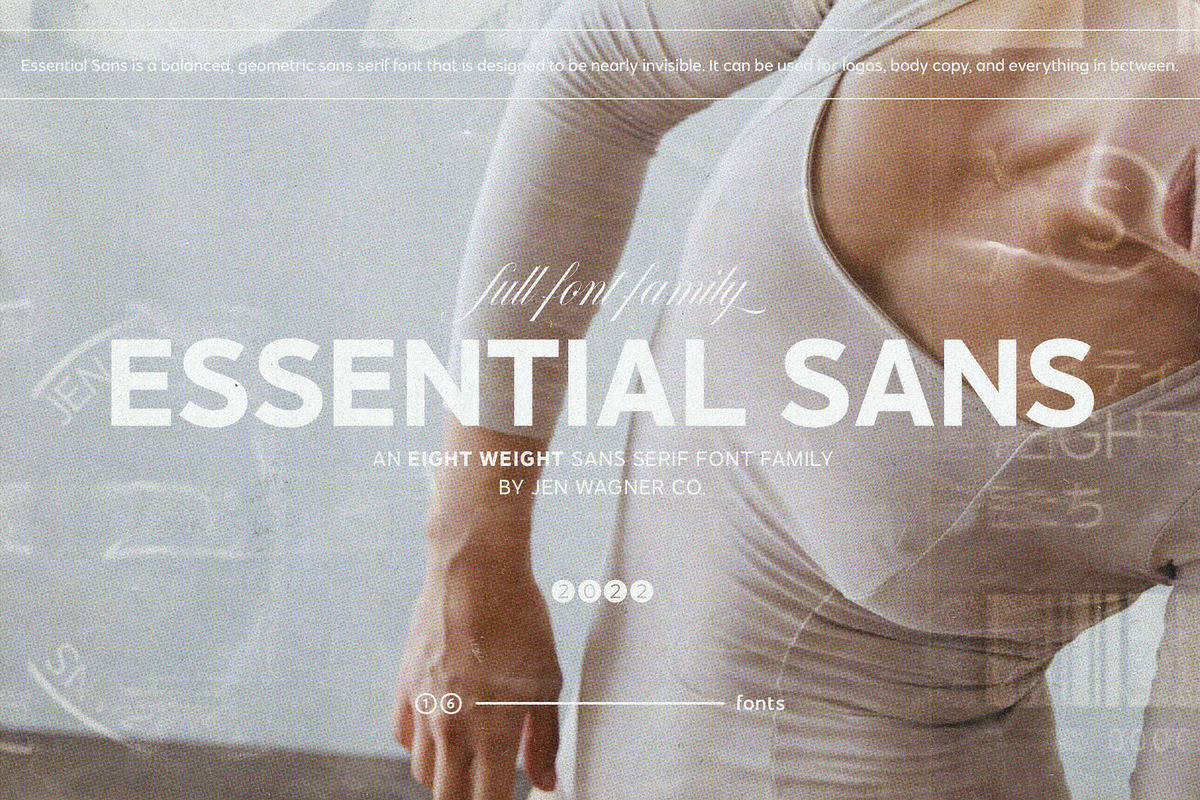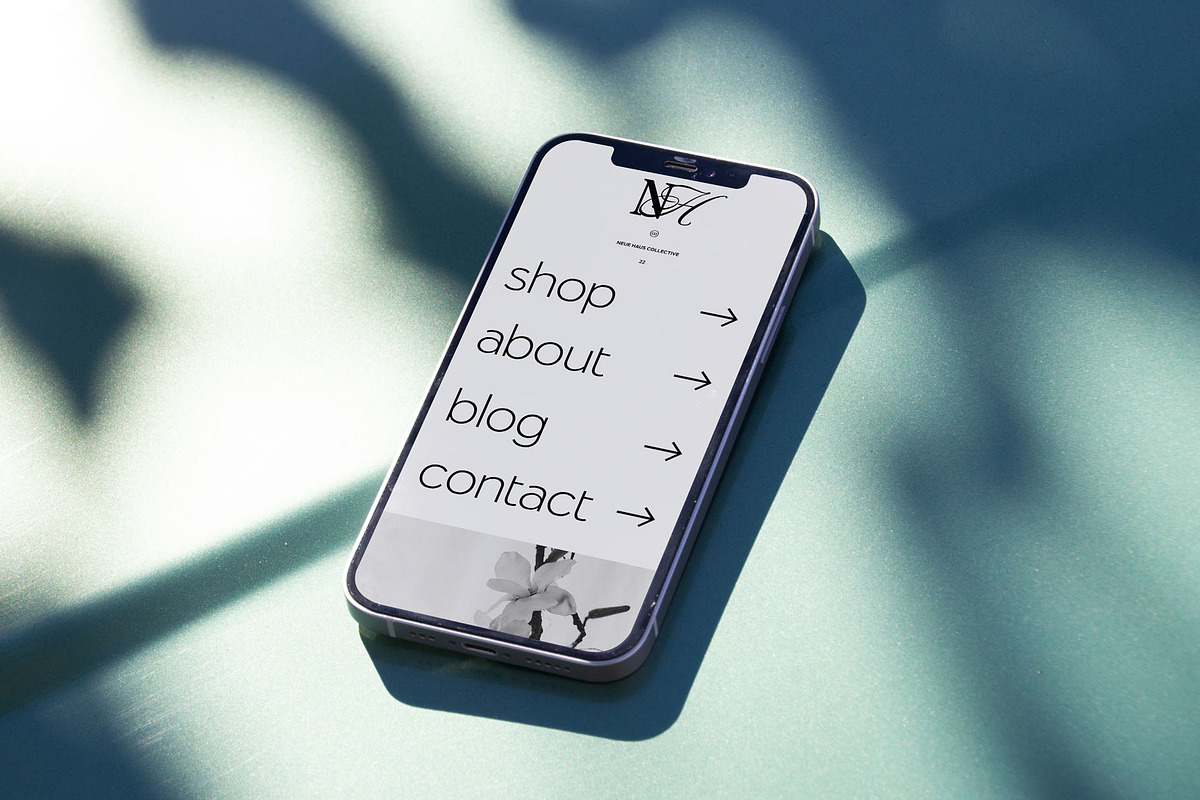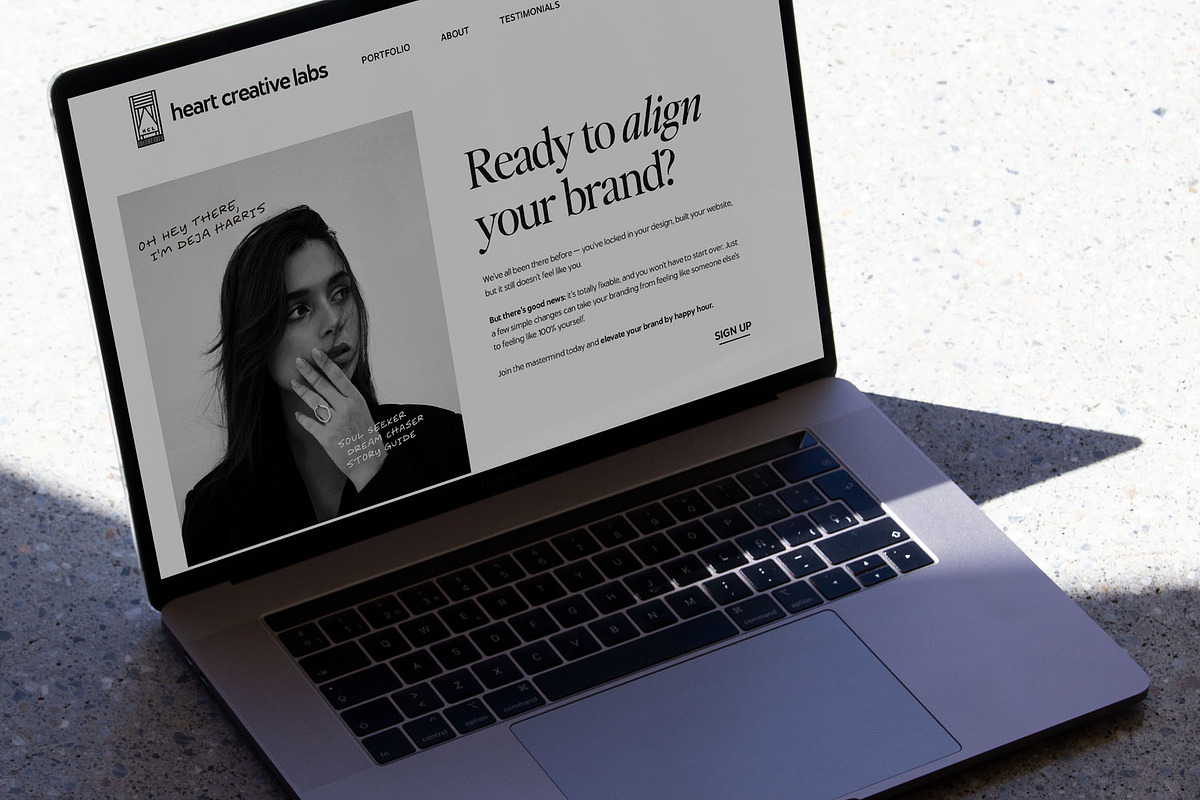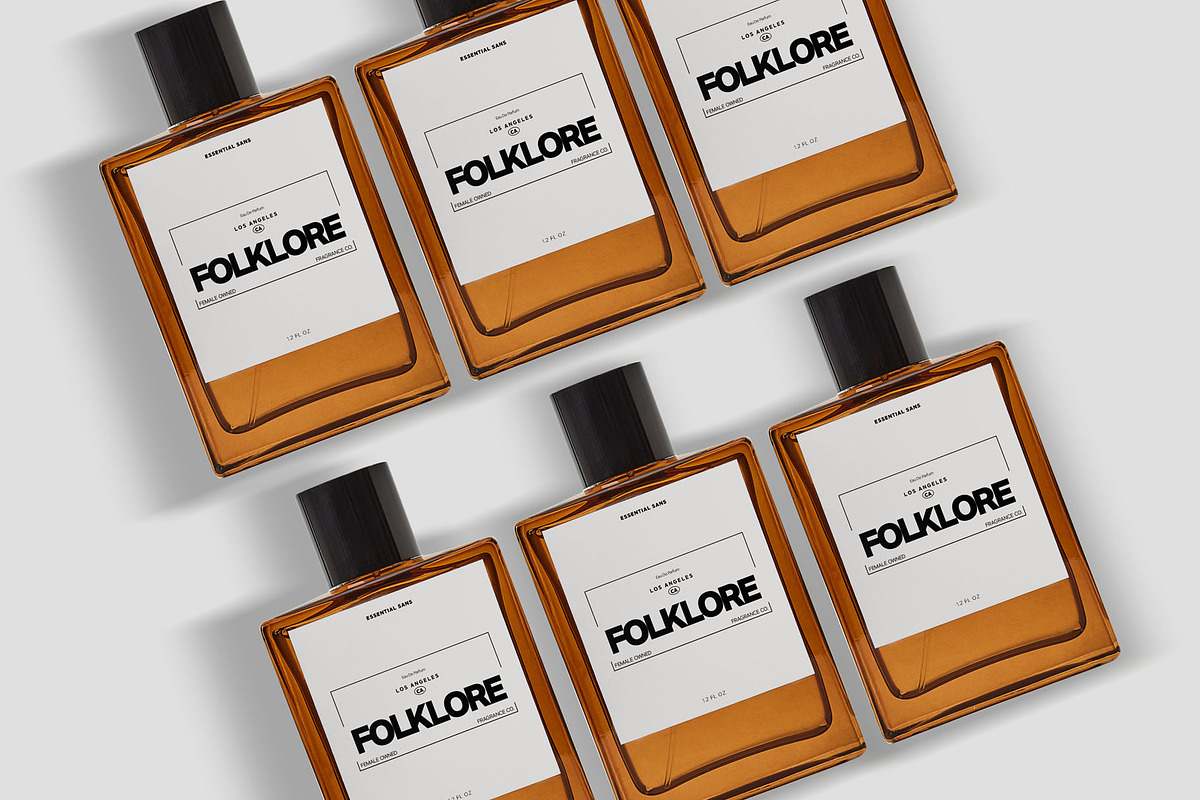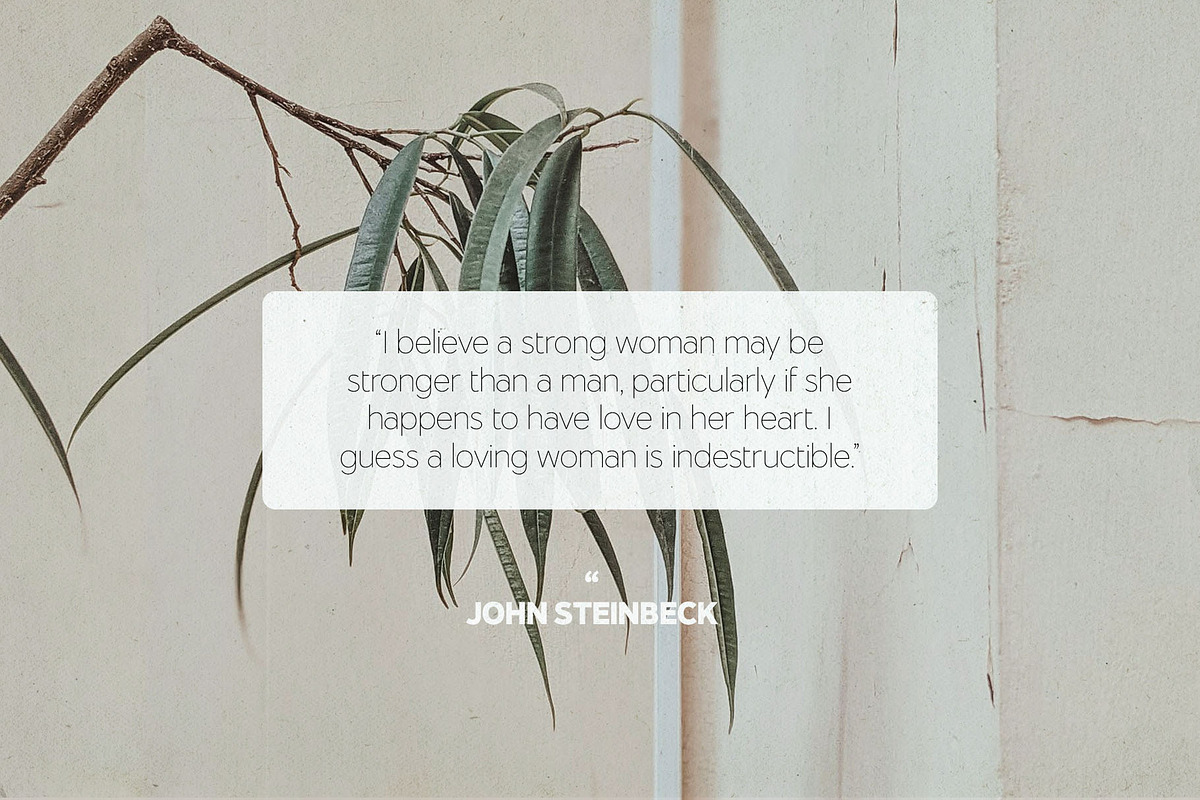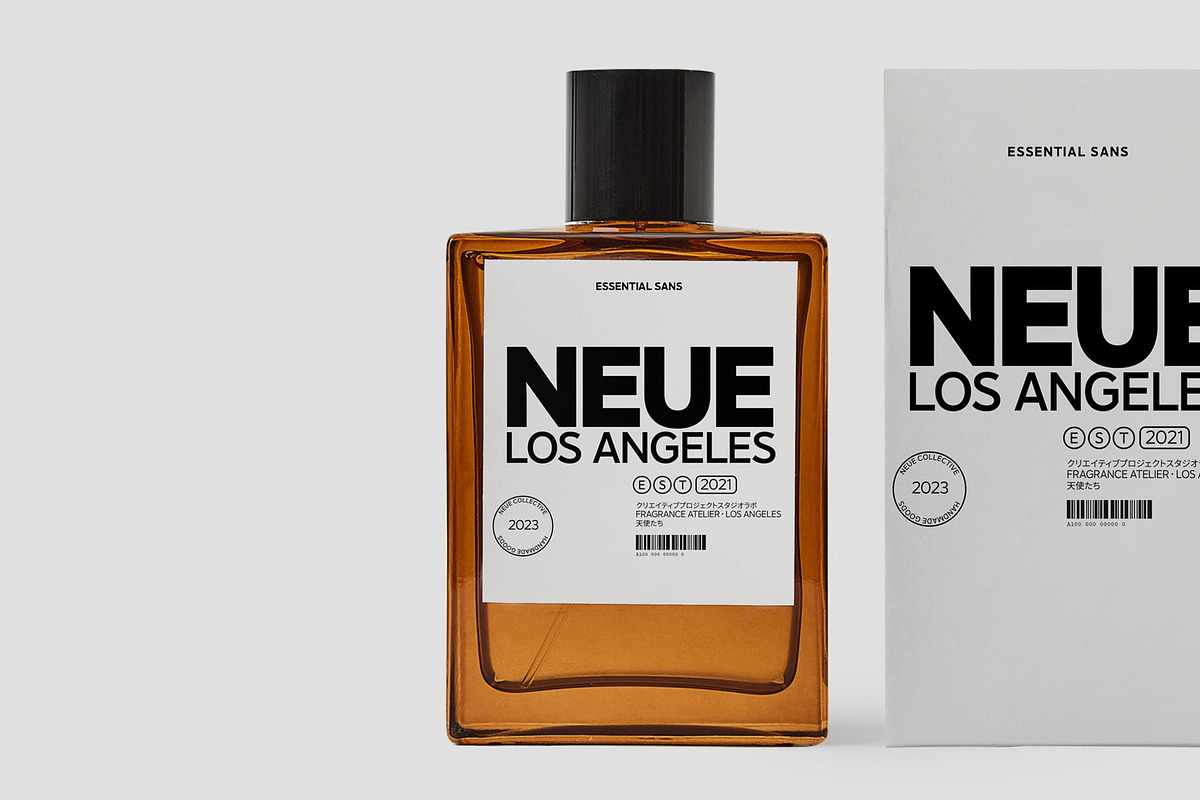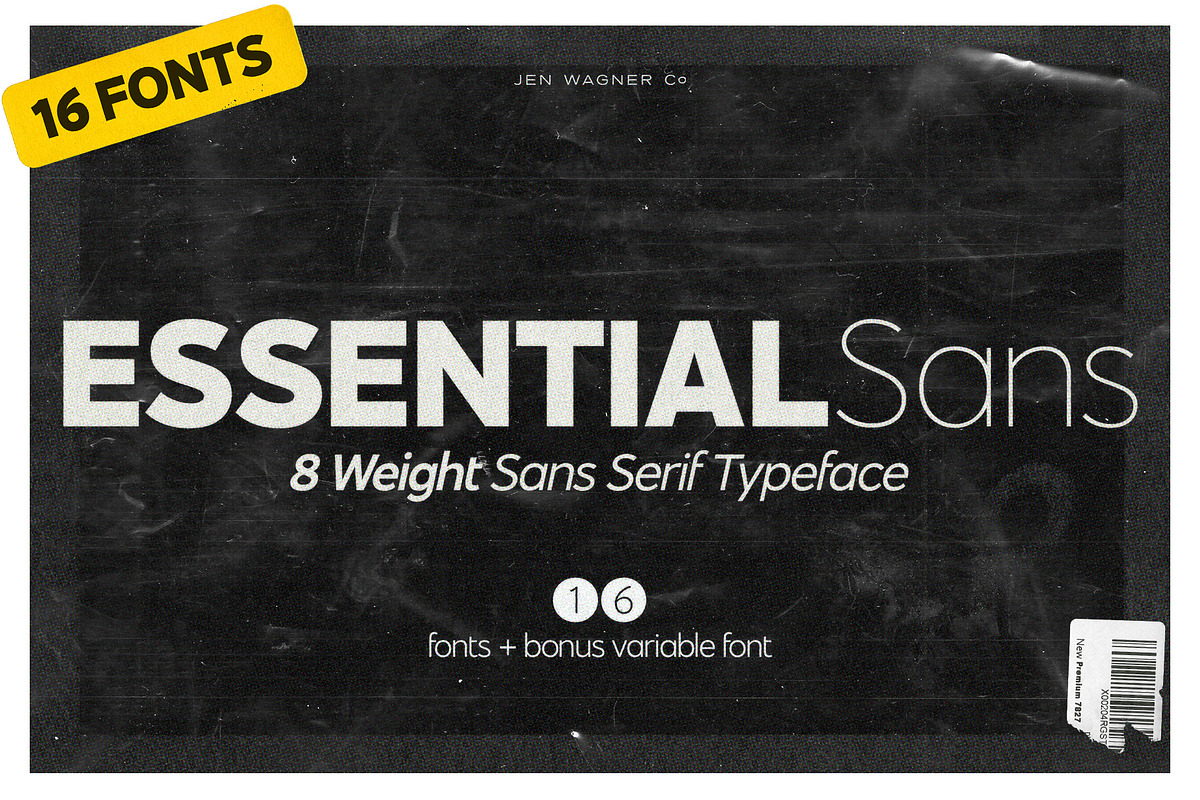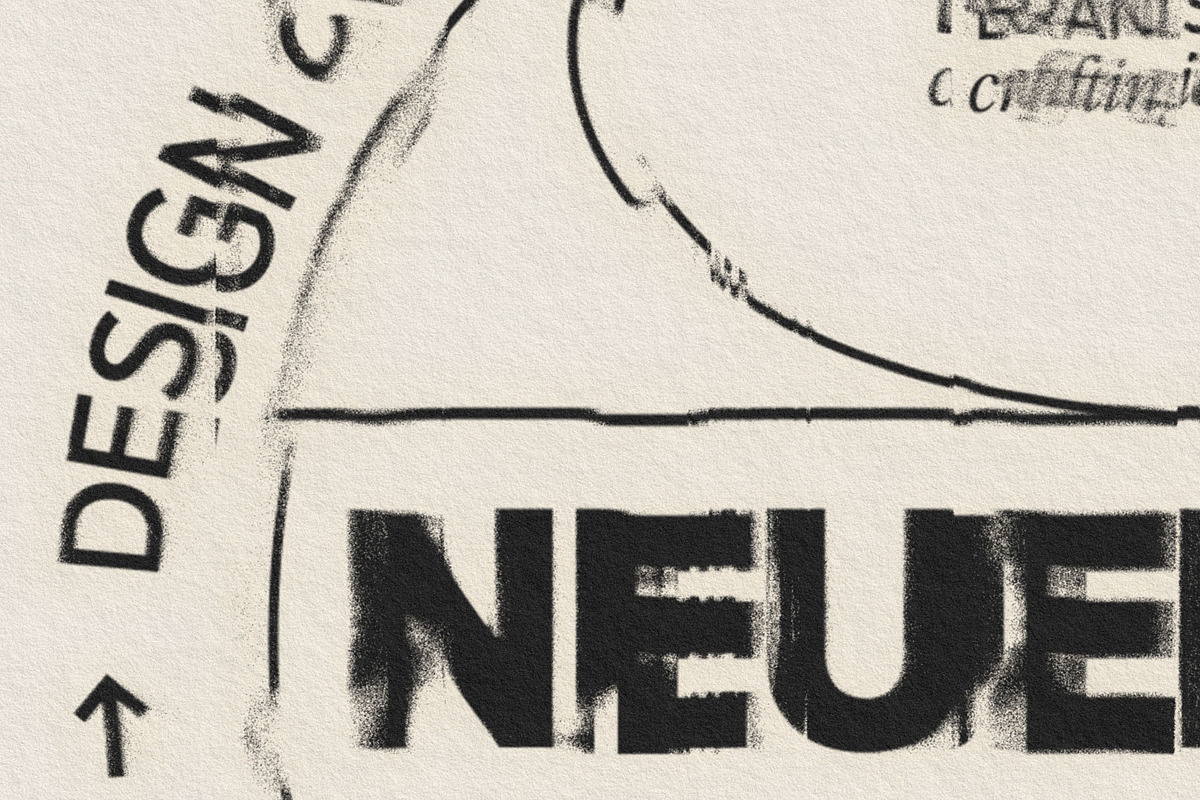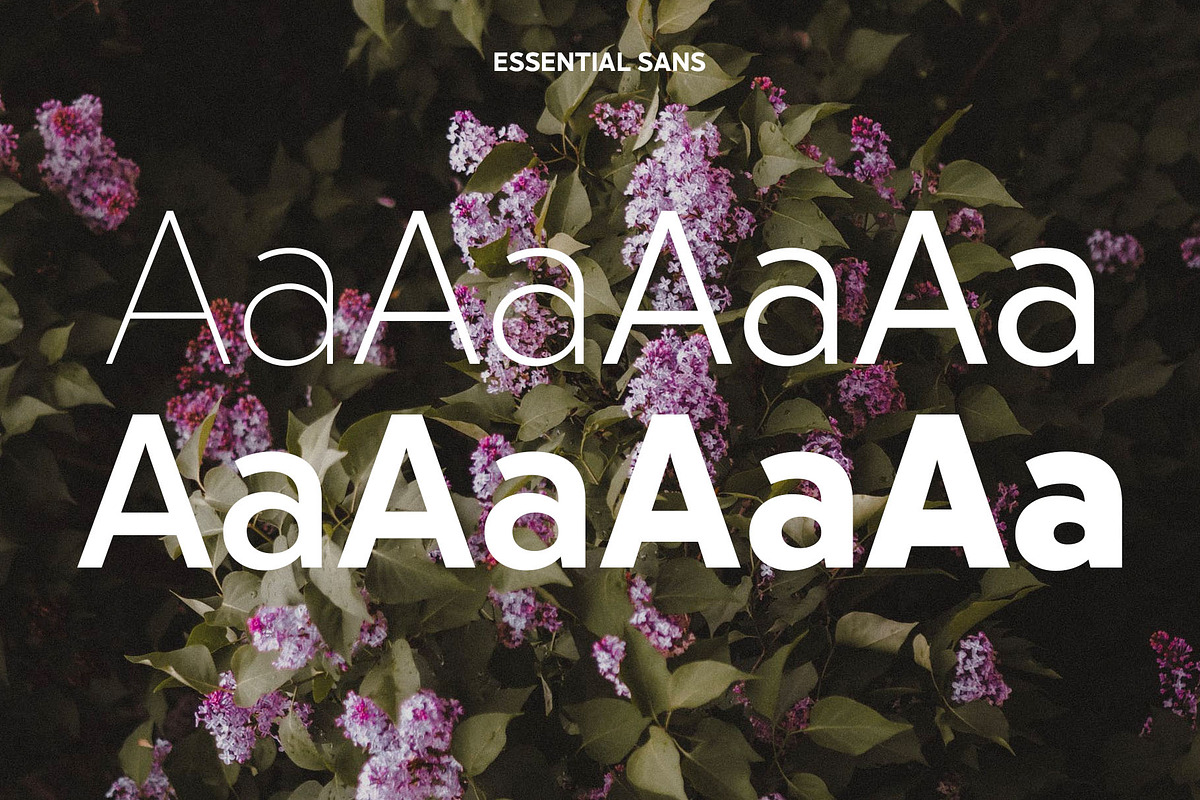
Essential Sans | 16 Font Typeface
Introducing Essential Sans – my very first full typeface with 8 weights and italics (16 fonts total).
Essential Sans is an eight weight, 16-font typeface designed to be an easy go-to for branding, web, and print design projects.
Each form is pared down to its essentials, so it's extremely versatile and can blend in or stand out as much as you choose.
It's versatile enough to be used on its own, or paired as you see above with Editor's Note, Perfectly Nineties, or Nautica (free with Adobe Fonts subscription).
You'll also get outline circled numbers 0-9 and letters A-Z, as well as solid circle versions of the same for each font (which you can access through the alternates or the Glyphs panel!), plus a set of arrows — all of which can be used to create beautiful, minimalist logos and design elements.
One thing to note about Essential Sans is the letter spacing. It was intentionally spaced for clean reading if you wanted to use it for body type, so I recommend setting the spacing a little tighter for display use (around -10 to -20 should do!).